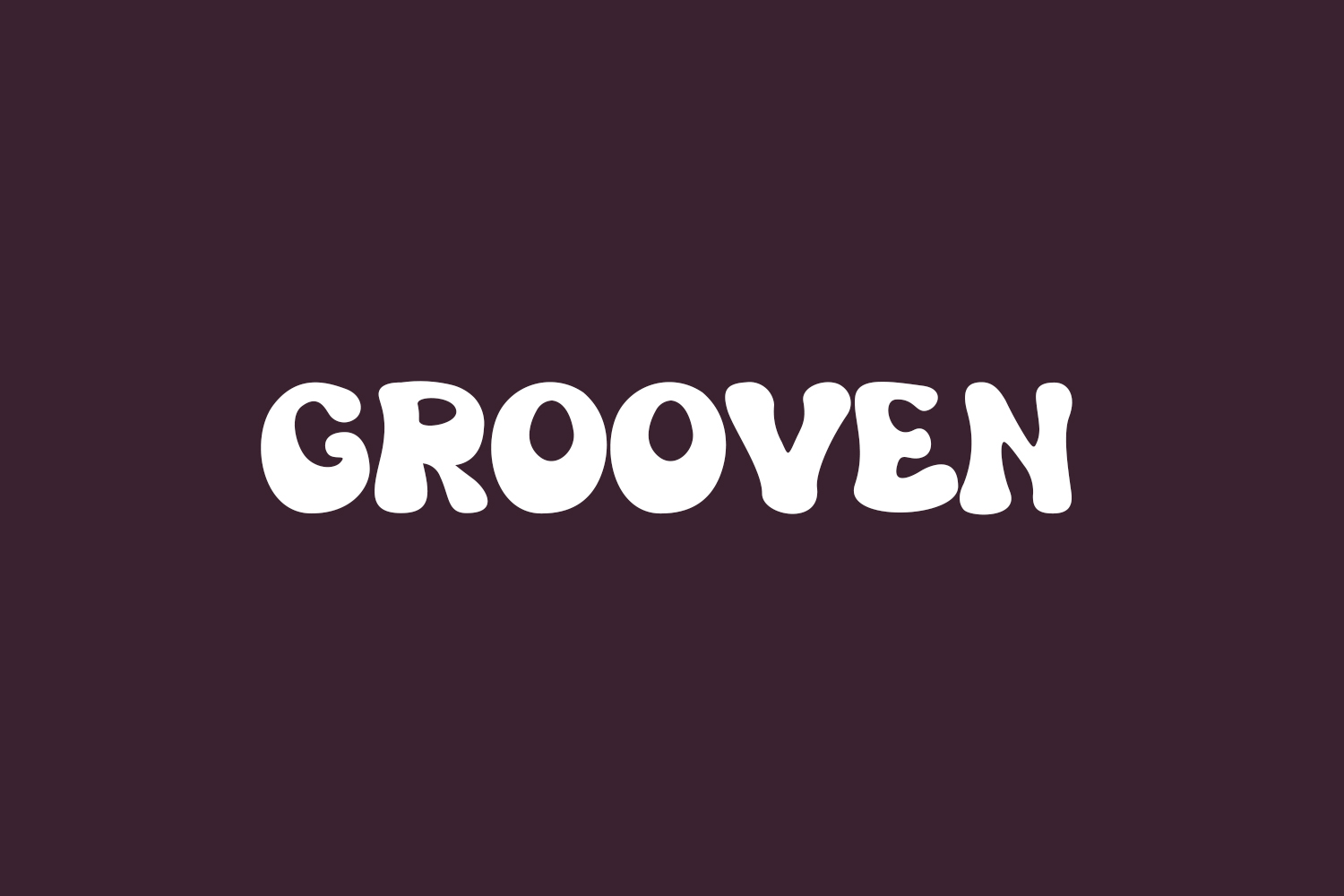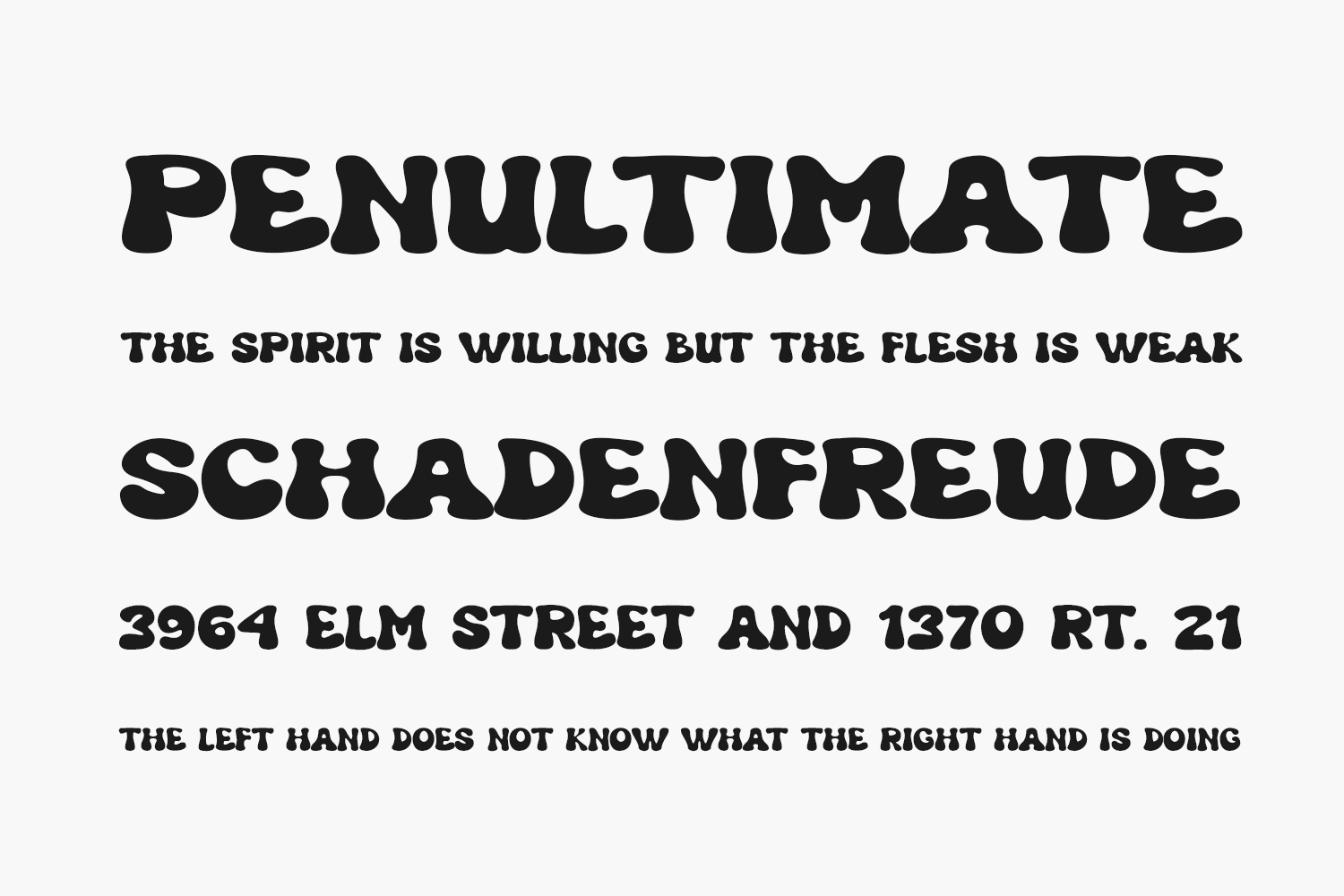
Grooven Free Font Family is an impressive display font that exudes a cool street-inspired vibe. Its unique style makes it an ideal choice for a wide range of projects, including social media posts, advertisements, product packaging, photography, quotes, and merchandise such as t-shirts and mugs.
Whether you’re looking to add a touch of urban flair to your designs or seeking a bold typography solution, Grooven has you covered. With its versatile nature, this font seamlessly complements various creative ventures, offering endless possibilities for your artistic expressions. Let Grooven elevate your next project with its captivating aesthetic and modern appeal. Grooven Free Font Family is free for personal use only. Please purchase the full version for commercial use.